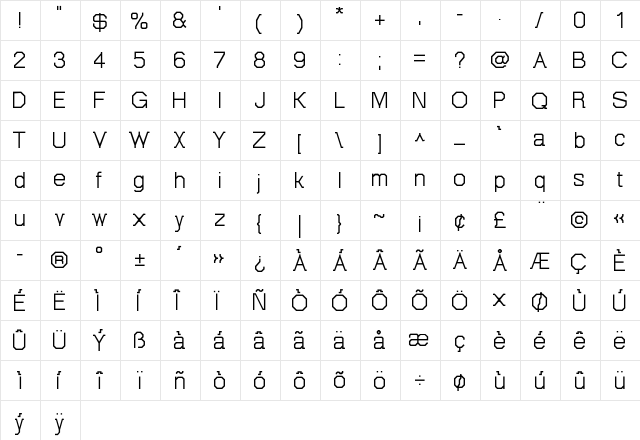
Octovetica Regular
| Designer | Guillaume-Ulrich Chifflot |
Design Context for Octovetica Typeface
Octovetica offers clean, dependable letterforms without strong stylistic allegiance, making it a practical choice for designers who need flexibility.
Pro Tip: Pair Octovetica with a font of contrasting weight or personality to build a more expressive typographic hierarchy.